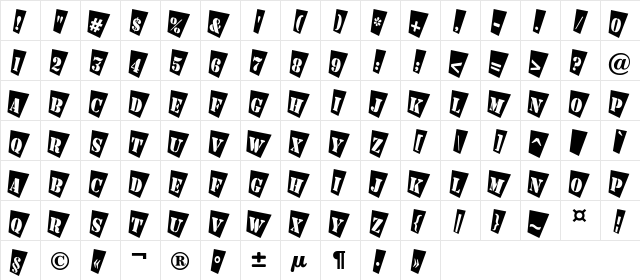
a_StamperCmTw Regular
Design Context for a_StamperCmTw Typeface
a_StamperCmTw has the rough pragmatism of spray-painted stencil signage, adding a raw, street-level authenticity to designs.
Ideal for industrial branding, streetwear, military-adjacent aesthetics, and urban signage projects.
Pro Tip: Pair a_StamperCmTw with raw, utilitarian design elements — exposed concrete textures, flat colour, and minimal ornamentation suit it well.